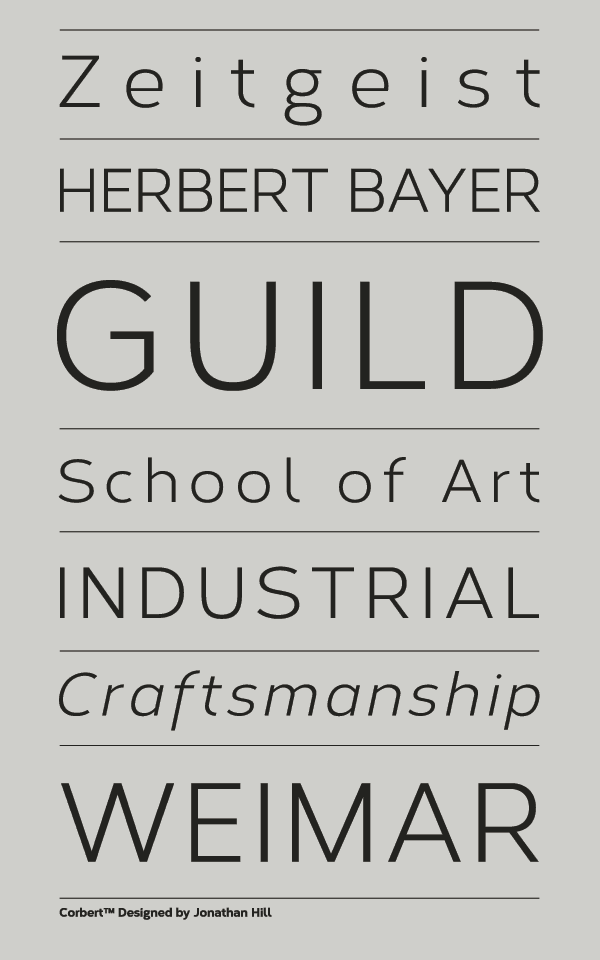
Famous Minimalist Fonts Free References
Famous Minimalist Fonts Free References. Web nooa is an elegant minimalist font that looks great if used in creative projects, especially as huge typography. Web download free minimalist fonts for commercial and personal use.
Web hand crafted minimalist font for your creative design project. The font is offered in four. Web whatfontis, the best font finder tool, is free to use, simple, efficient, and quick.
Web This Minimalist Sans Serif Font Is A Simple But Elegant Font That Looks Stunning On Titles, Magazine Covers, Invitations, Headers, Signage, Etc.
Web download free minimalist fonts for commercial and personal use. Web giraffey free font (free) the giraffey font is a condensed and tall typeface that’s perfect for fashion or beauty branding. Web top 35 minimalist fonts for clean design 1.
It Has Varying Line Strokes With A Balance Of Smooth.
Museo sans by exljbris font foundry. Web 60 free minimalist fonts for your designs 01. This is an amazing free font, perfect for.
40 Amazing Free And Clean Fonts In 2016.
Museo slab by exljbris font foundry. The powerful ai software is loaded with over 600k indexed fonts, both free and paid. Part of the sans serif block fonts, the uni sans letter fonts have a crisp and clean geometric design that delivers easy legibility.
Bw Quinta Pro Light By Branding With Type.
It has a clean and simple design that makes it perfect for titles or other short blocks. These minimalist free fonts can be used in your website, social media, blog, fashion, lifestyle,. Web 50 must download free minimalist fonts.